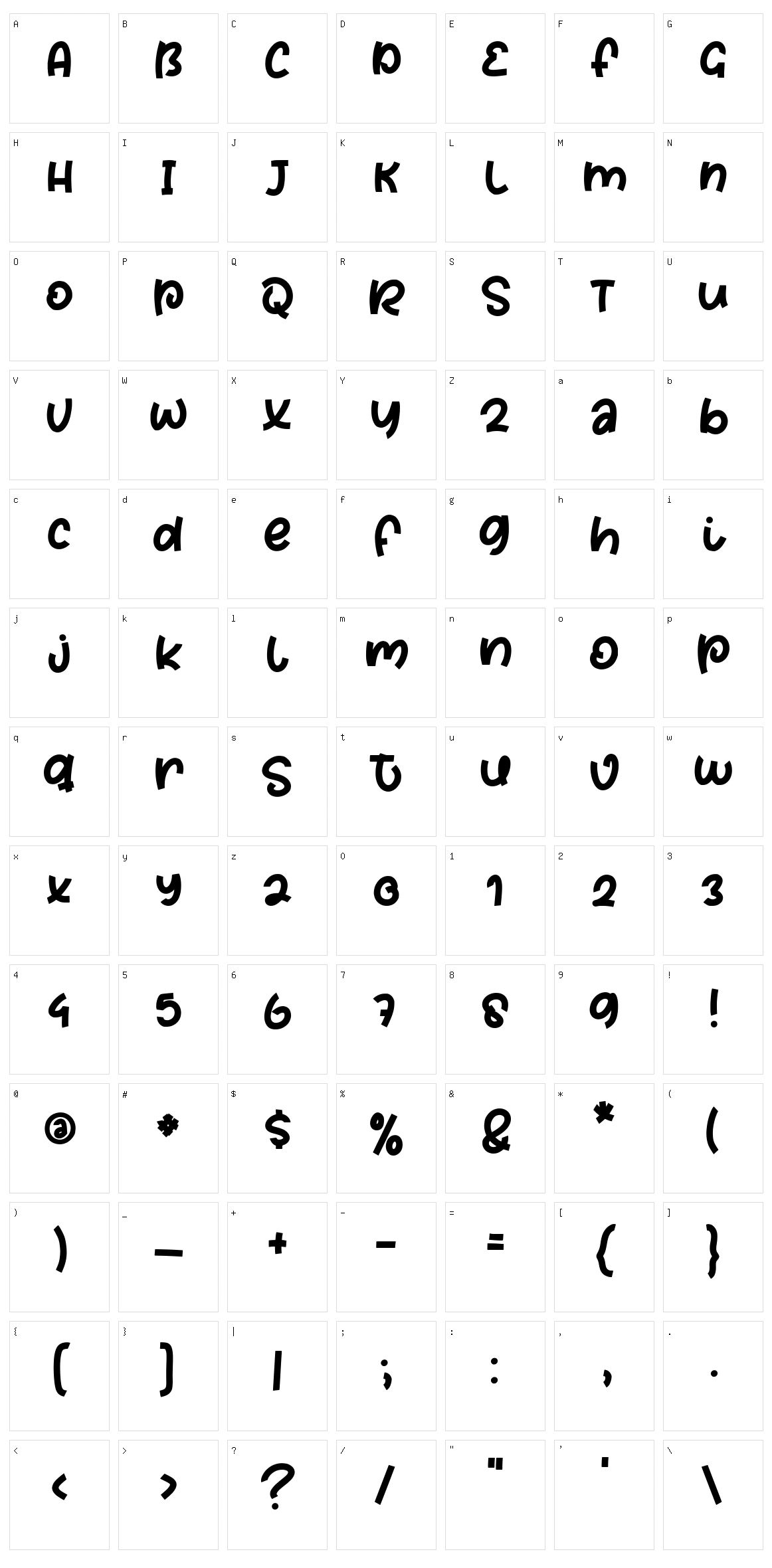
The free font Fresh Lemon is carefully designed by AZ Std, showcasing a thoughtful balance of creativity and usability and falls under the Cartoon font style. When you download the ZIP file, it contains only 32.75 KB of font files, making it lightweight and quick to download. Please review the license details below to understand permitted usage and distribution rights. If license information is not available, we recommend using this font for personal projects only or contacting the author directly for commercial usage permissions.